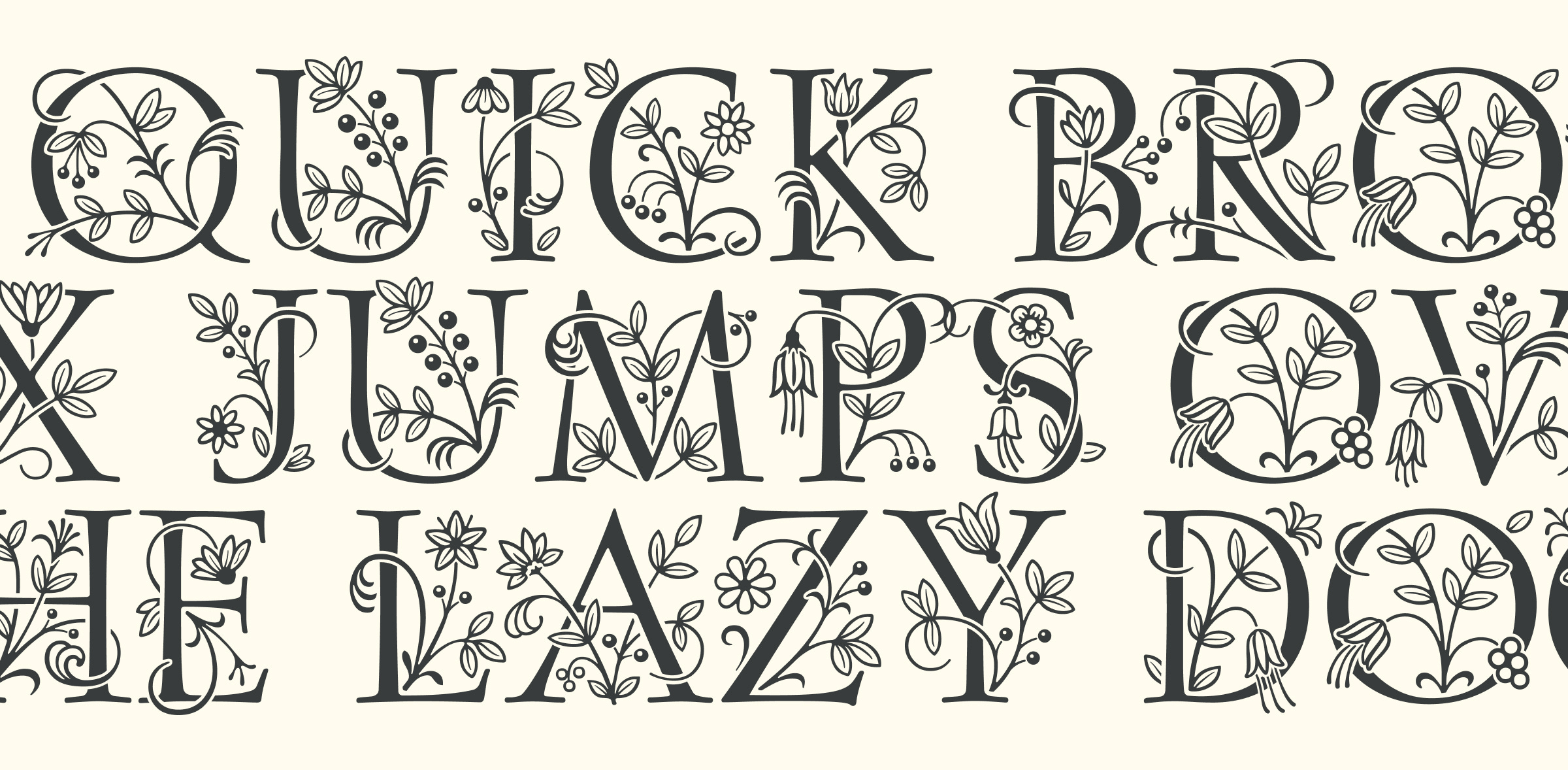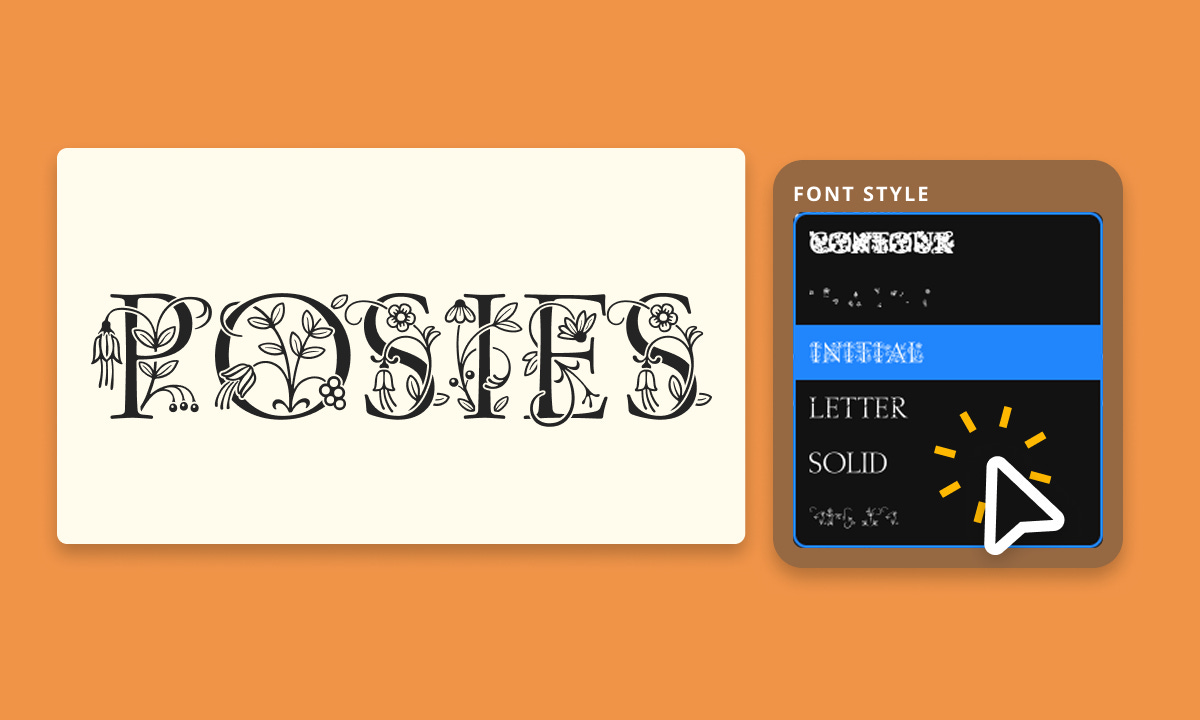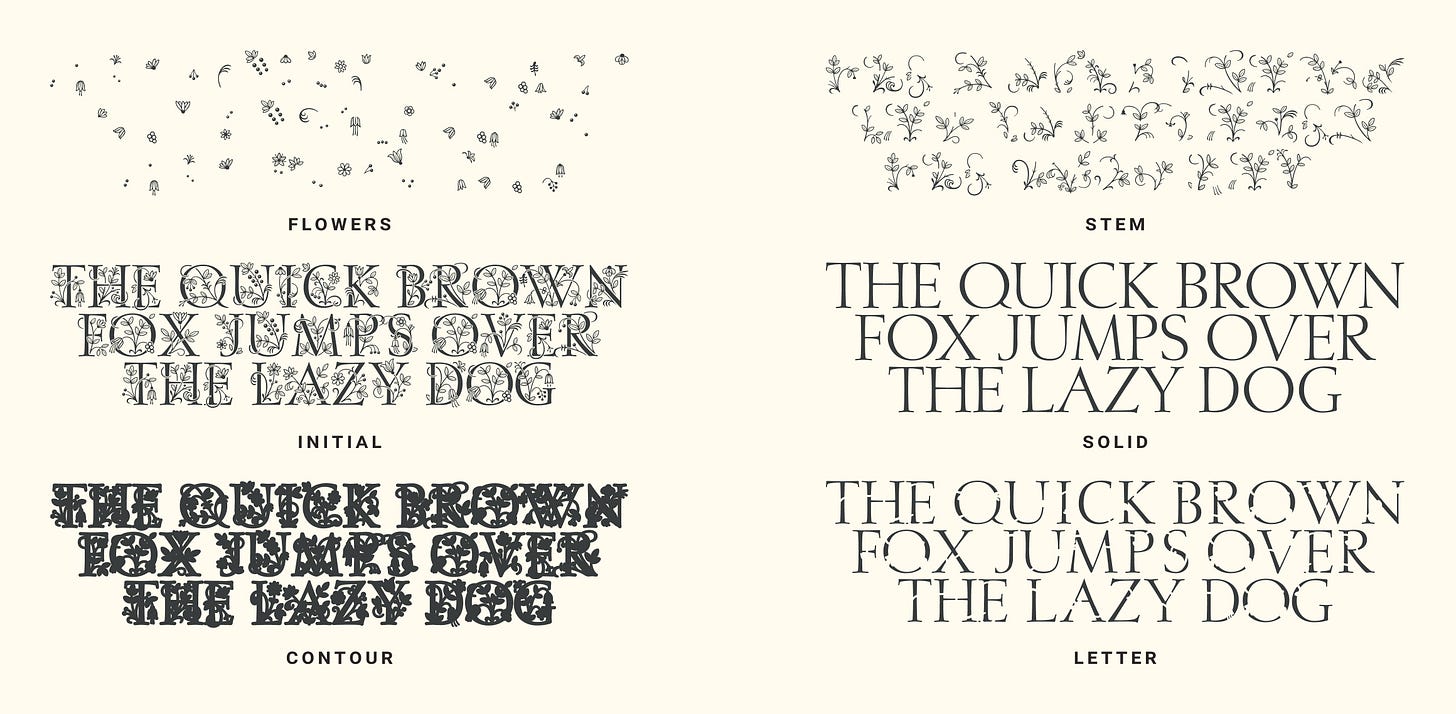
About Posies
Posies is a decorative font inspired by the ornate initial caps of illuminated manuscripts. It’s playful and enchanting, made for designers who love illustrative details.
Posies is more than just a font — it’s a design system for vibrant drop caps and ornamental initials. With four stackable layers, you can create lush, multicolored decorative letters, or use the ready-made Posies Initial font for quick single-color elegance. The Solid style offers clean Roman capitals to pair perfectly with your decorated initials, making Posies an ideal pick for editorial openers, fairy-tale packaging, or wedding invites that need a little magic.
Type Details
Display typeface with gorgeous graphic details
Buildable layers let you customize and craft your ideal display style
Perfect for illustrative drop caps, bold titles, and expressive headlines
Meticulously and beautifully illustrated, Posies offers Flower, Stem, Initial, Solid, Contour, and Letter font styles—each crafted to layer seamlessly within a system. This modular design makes it effortless to tailor every element to your unique creative vision.
What I love most about Posies is the ability to use shape select to isolate and edit individual illustrative elements. This empowers you to make precise vector adjustments or effortlessly apply colors, giving you complete creative control over every detail.
Behind the Typeface
Created by P22, Posies channels the charm and intricacy of historical illuminated manuscripts into a modern typographic toolkit. Each layer adds flourishes of shadow, fill, and outline — letting you mix, match, and colorize with ease. Whether you want to nod to medieval artistry or just add a dash of decorative delight, Posies gives you everything you need to bring your typography into full bloom.
Using Posies for Typography & Design
Posies is perfect for adding visual richness to your typography design. Use it to create striking drop caps, romantic packaging, or whimsical editorial features—anywhere you want ornate, storybook flair. Its layered system makes it easy to build multicolored decorative design treatments, while the Posies Initial and Solid offer quick options for simpler styling.